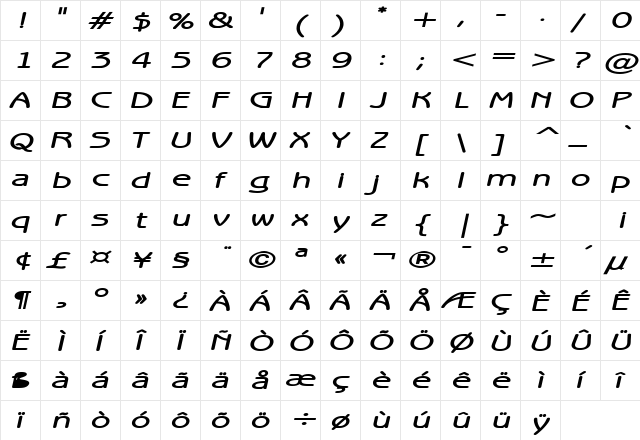
Beagle Extended Bold Italic Font Preview
Design Context for Beagle Extended Typeface
Beagle Extended offers clean, dependable letterforms without strong stylistic allegiance, making it a practical choice for designers who need flexibility. Its italic angle brings a sense of urgency and motion to the letterforms. The heavy weight commands attention and anchors typographic hierarchies.
Pro Tip: Try Beagle Extended for annotation and caption copy alongside an upright companion — the contrast in angle creates a dynamic but ordered typographic system.